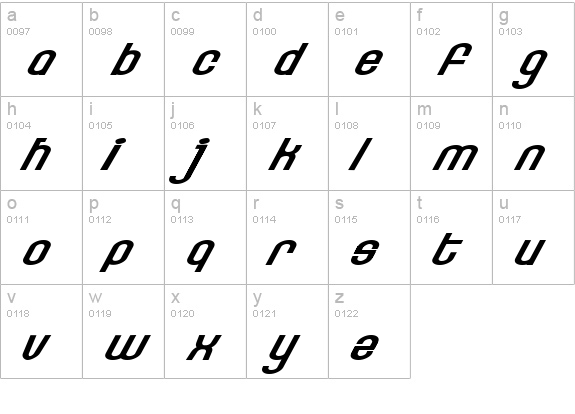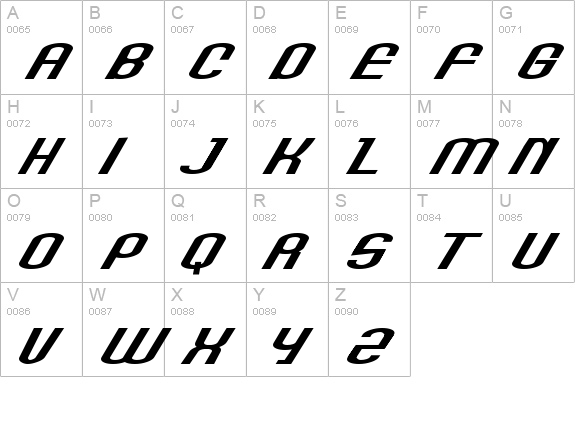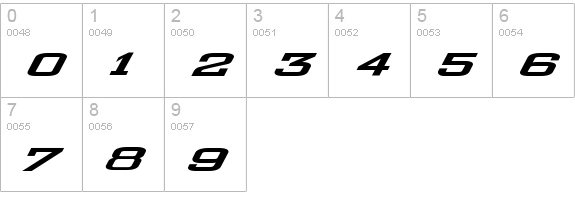
Introducing Precision Font, a meticulously crafted typeface designed to bring elegance and sophistication to your design projects. With its clean lines and precise letterforms, Precision Font exudes professionalism and attention to detail. Whether you are designing a business logo, creating a stunning invitation, or enhancing your website's typography, this font is sure to make a lasting impression. What sets Precision Font apart is not only its exceptional aesthetics but also its versatility. This font seamlessly blends classic and contemporary elements, making it suitable for a wide range of applications. From corporate presentations to editorial layouts, Precision Font adapts effortlessly to any design context, ensuring your message is conveyed with clarity and style. And the best part? Precision Font is absolutely free! That's right, this high-quality typeface can be freely downloaded at FontsMarket.com, allowing you to enhance your creative projects without breaking the bank. With its generous licensing terms, you can use Precision Font for personal and commercial purposes, making it an invaluable asset for designers and creatives alike. Unlock your creativity with Precision Font and elevate your designs to new heights. Download this exceptional typeface today at FontsMarket.com and experience the seamless fusion of precision, style, and freedom.